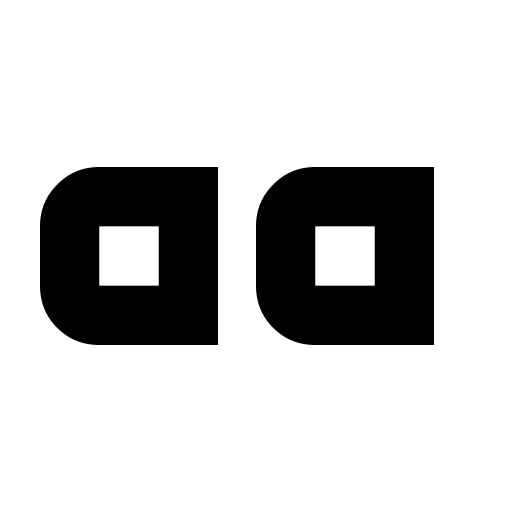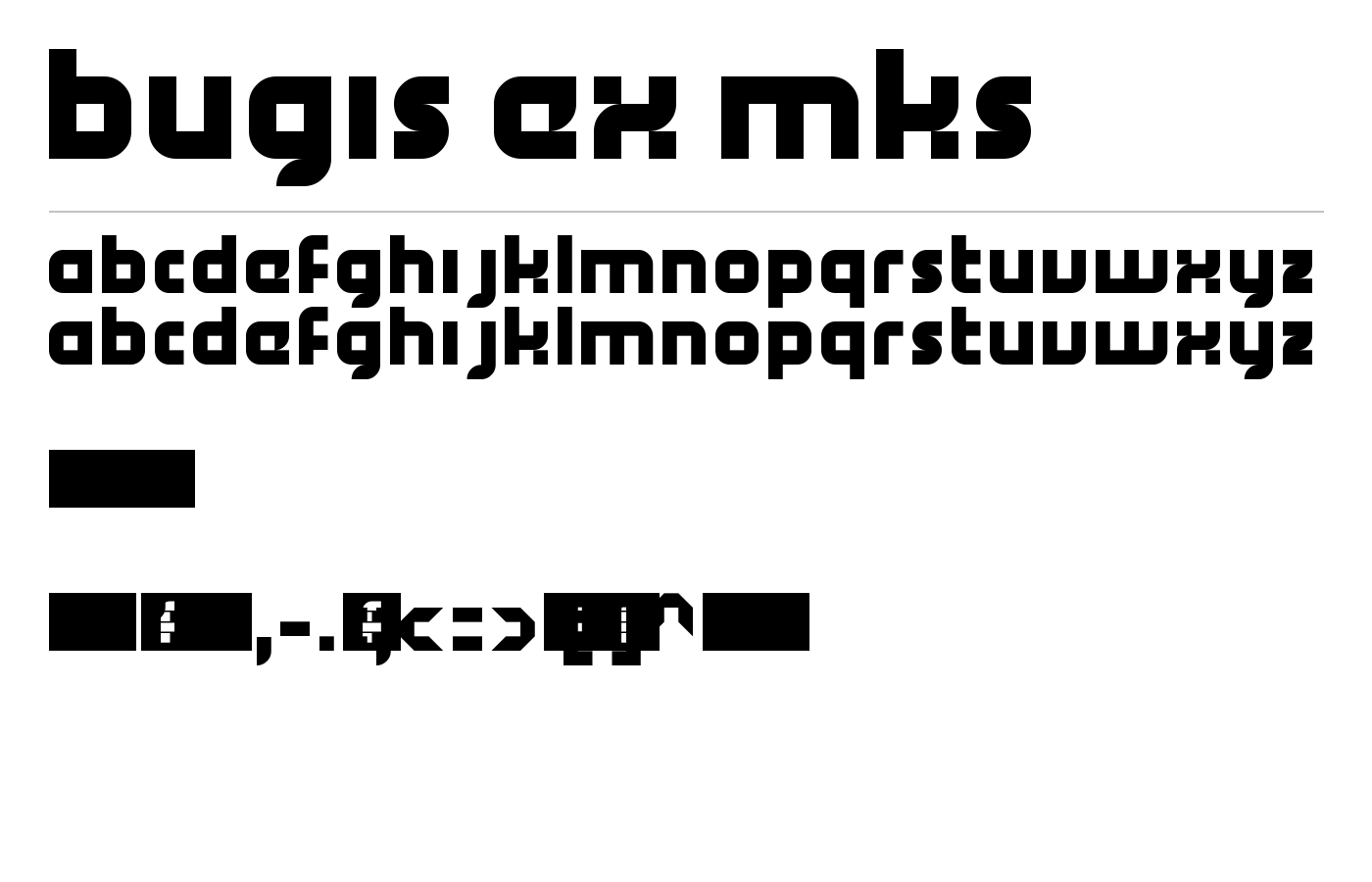
Bugis ex mks is a bold, geometric sans serif font with a strong, blocky presence and clean, sharp edges. Its uniform stroke weight and square shapes give it a modern, tech-inspired feel, ideal for headlines, logos, and branding that demand a striking, contemporary look. This font works best in display settings where clarity and impact are key, lending a sense of solidity and precision.
bugis ex mks Font
About bugis ex mks Font
| Font family | bugis ex mks Font |
| Designer | triaChlis |